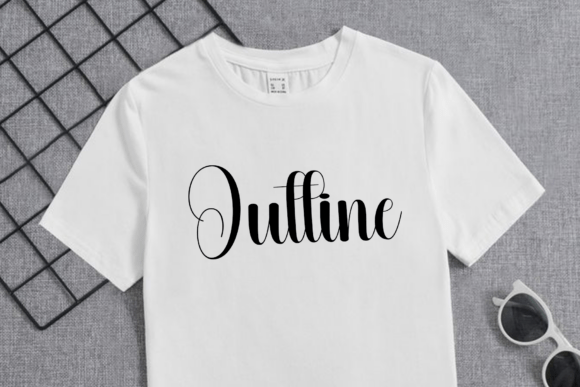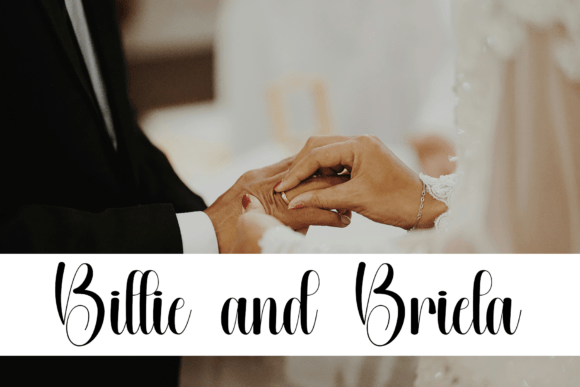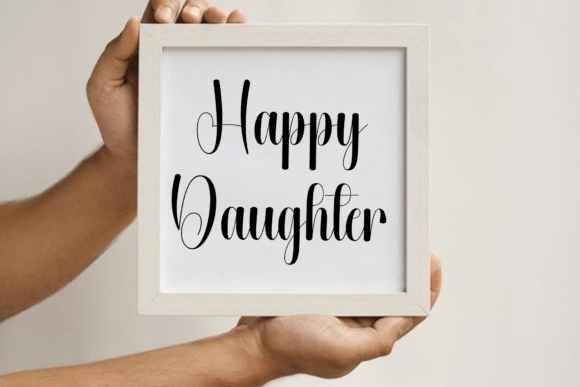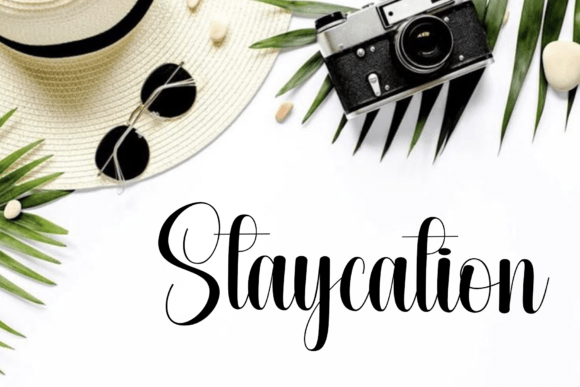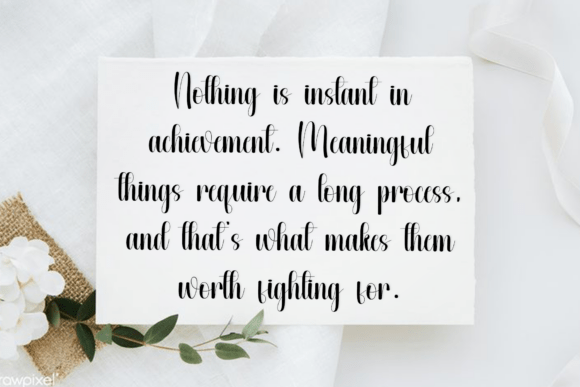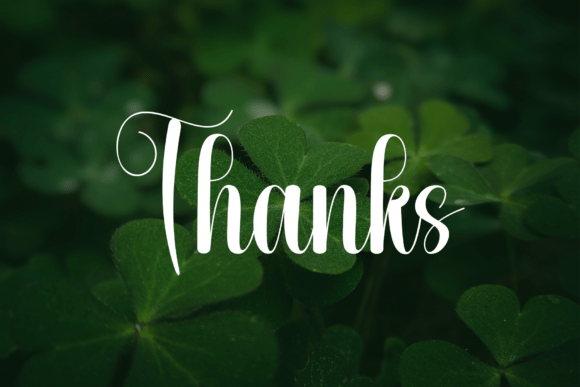
Introduction to Luckyday Font
Luckyday is an elegant and fluid handwritten script font that captures the essence of a modern, sophisticated typeface.
This font is a perfect choice for luxury wedding stationery, intimate event branding, high-end editorial signatures, and sophisticated lifestyle photography overlays .